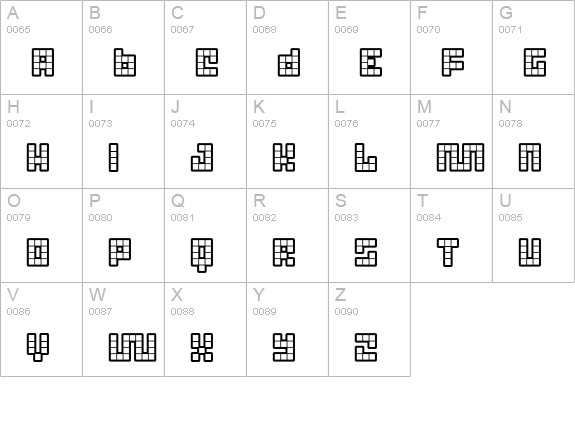
Introducing Trick Blueprint font, a mesmerizing display typeface that will add a touch of intrigue to your design projects. With its unique blueprint-inspired design, this font captures the essence of precision and creativity. Trick Blueprint font is the perfect choice for those seeking a bold and edgy aesthetic. Its sharp lines and intricate details will make your text stand out, whether it's used for headlines, logos, posters, or any other creative endeavor. But what sets Trick Blueprint font apart is not only its captivating design but also its accessibility. This font is freely available to download at FontsMarket.com, making it a valuable asset for designers and creatives on a budget. With Trick Blueprint font, you can unleash your imagination and bring your ideas to life, without the worry of breaking the bank. So why wait? Download Trick Blueprint font today and let your designs speak volumes with its striking style and unlimited possibilities.